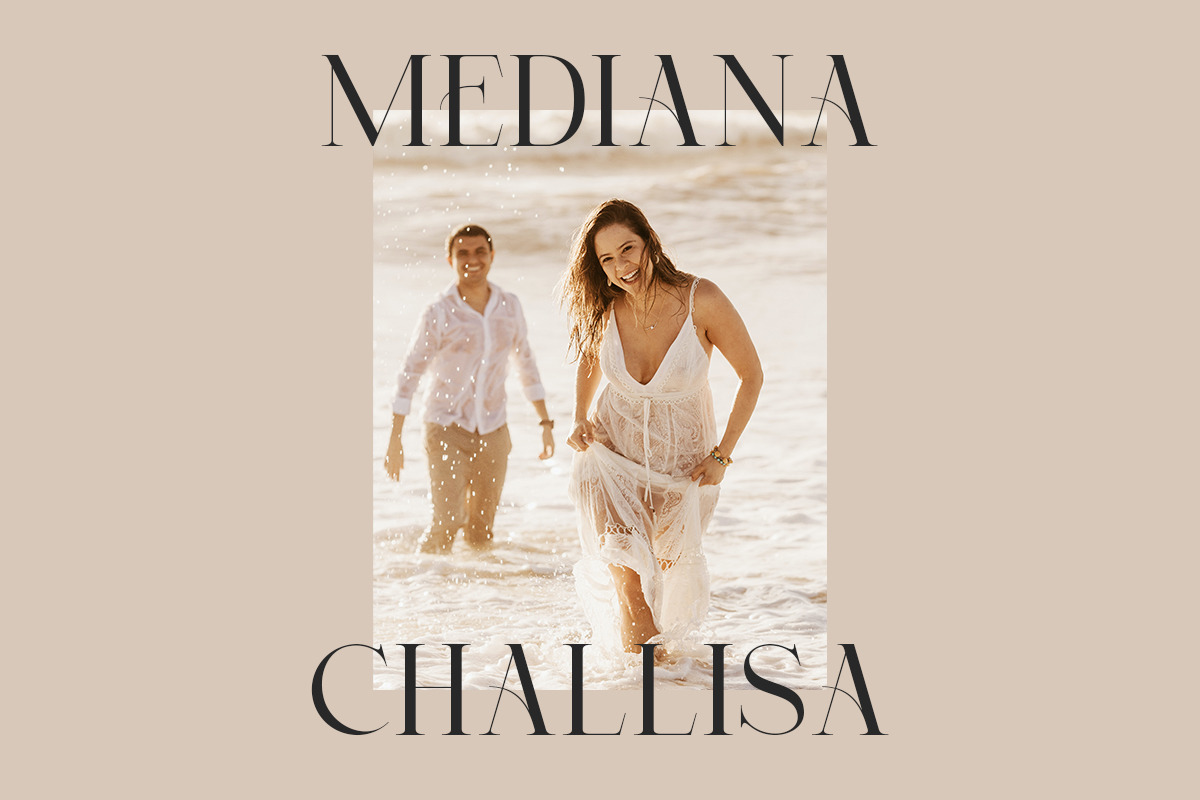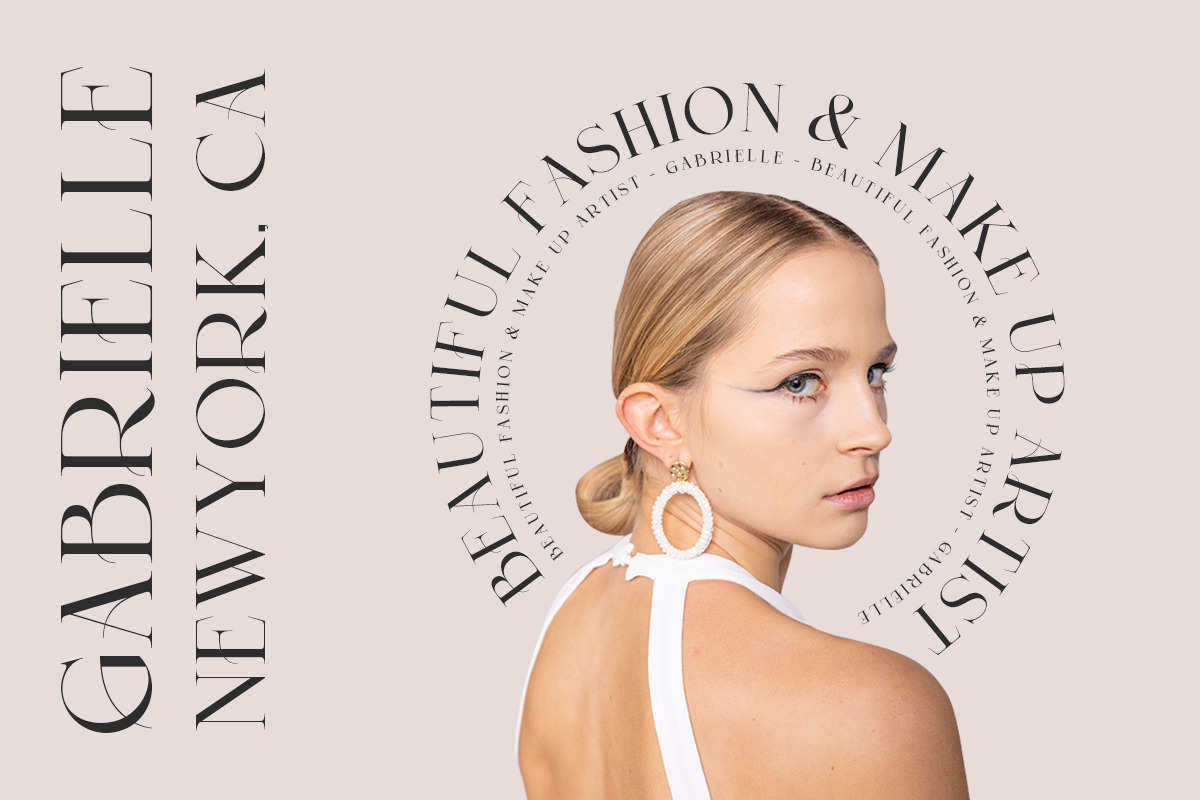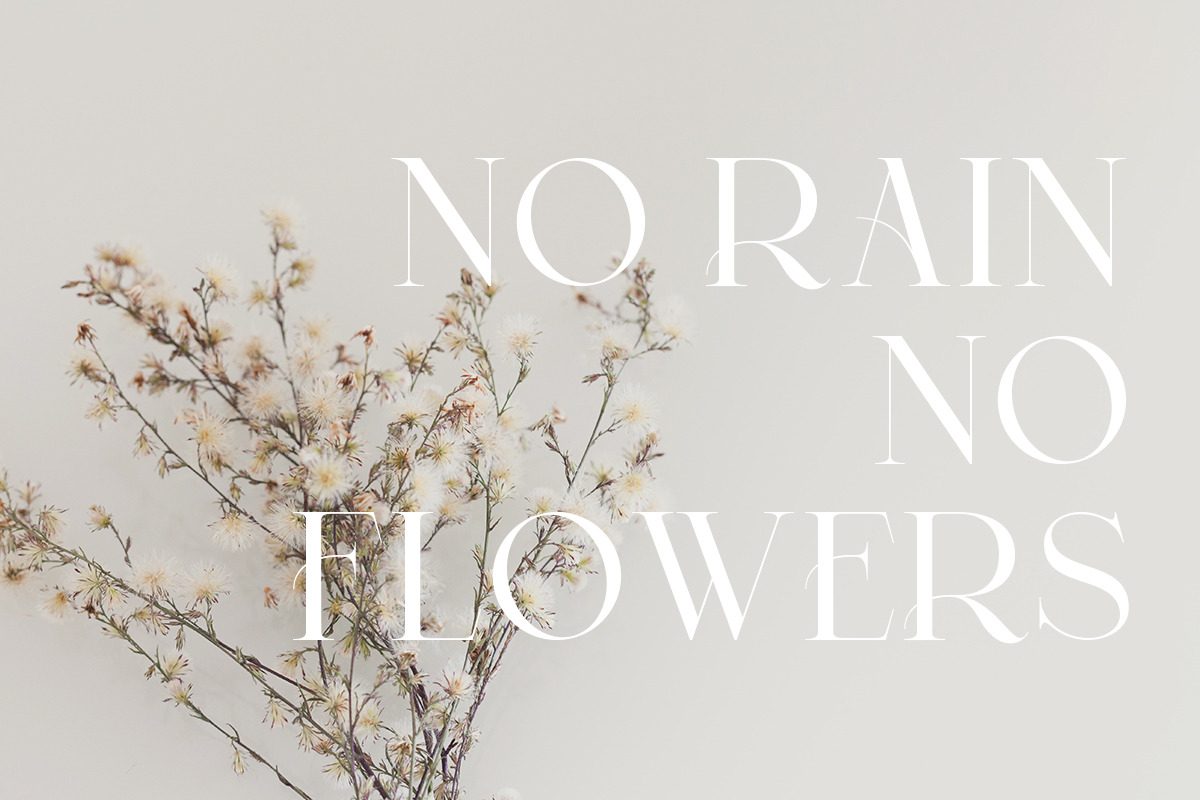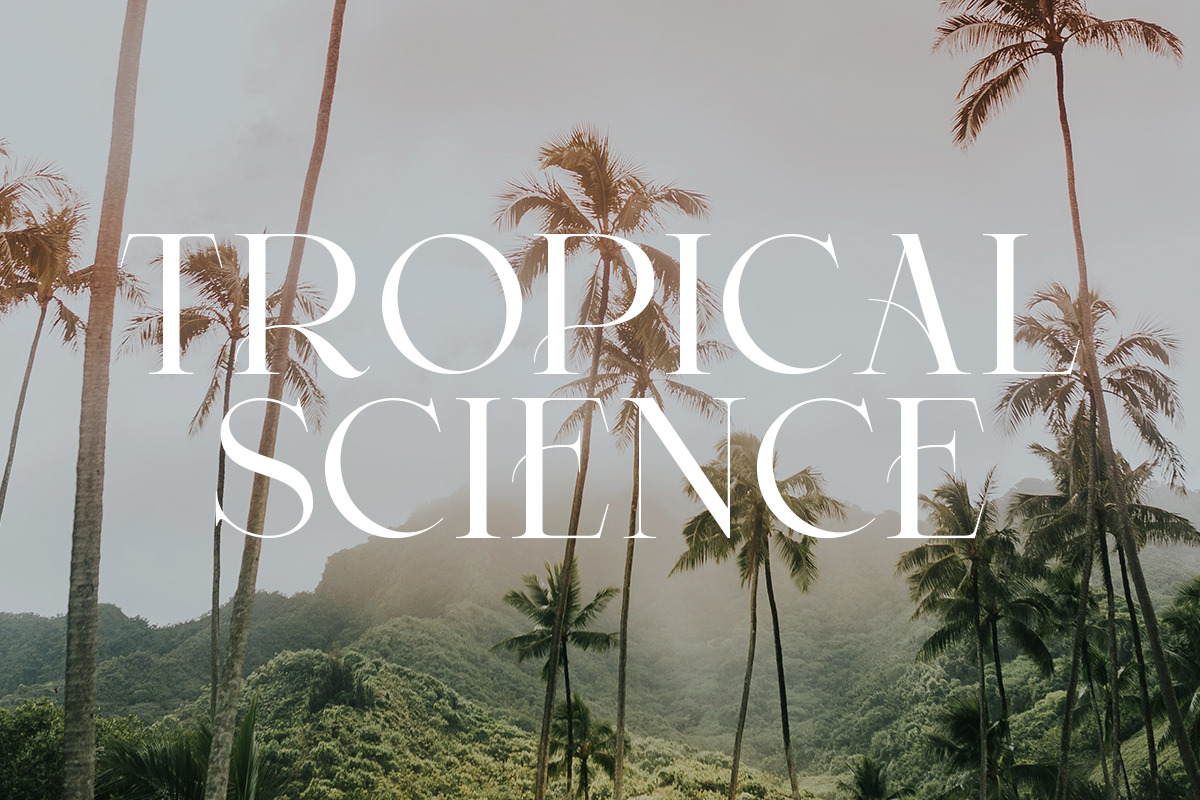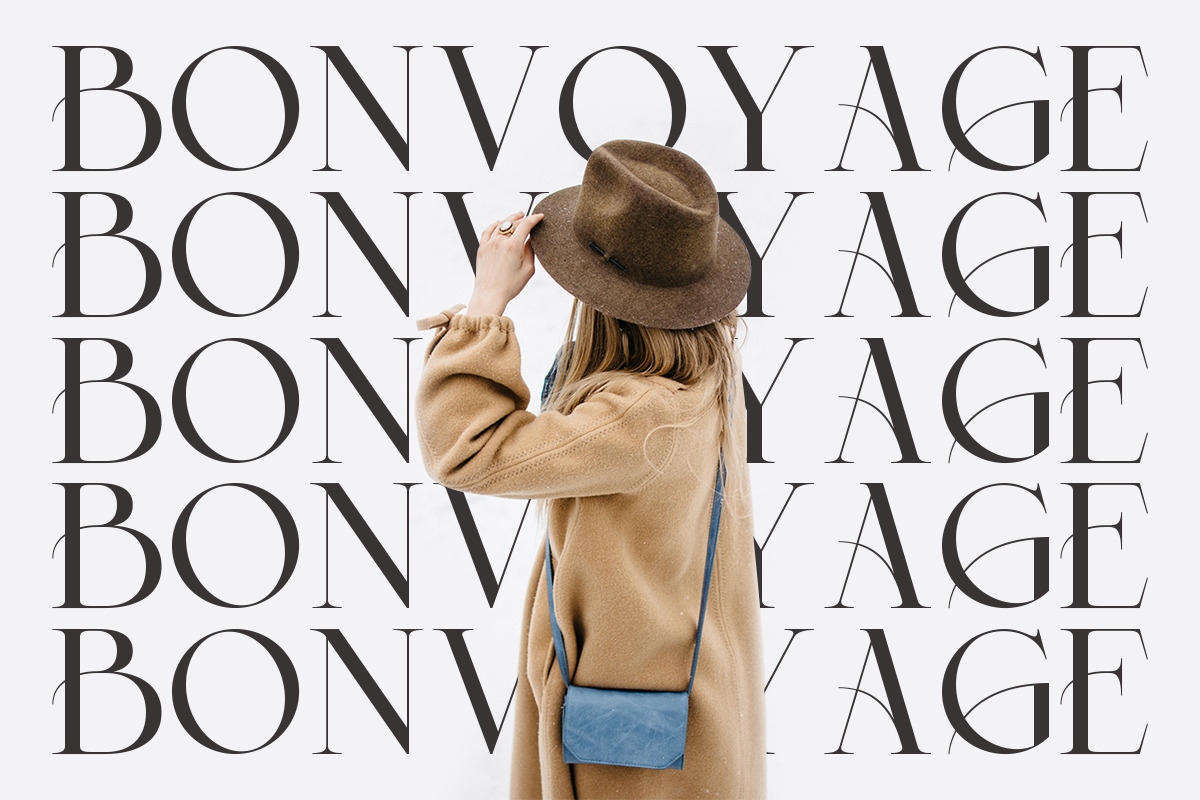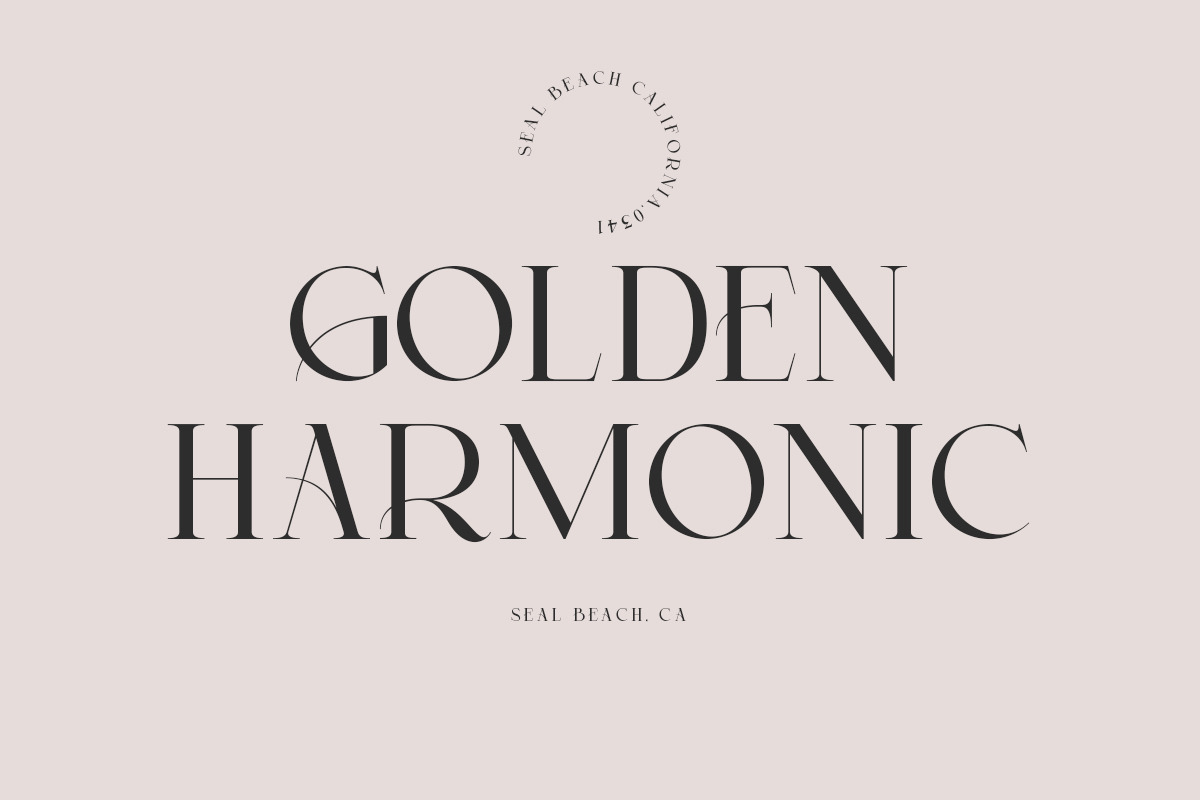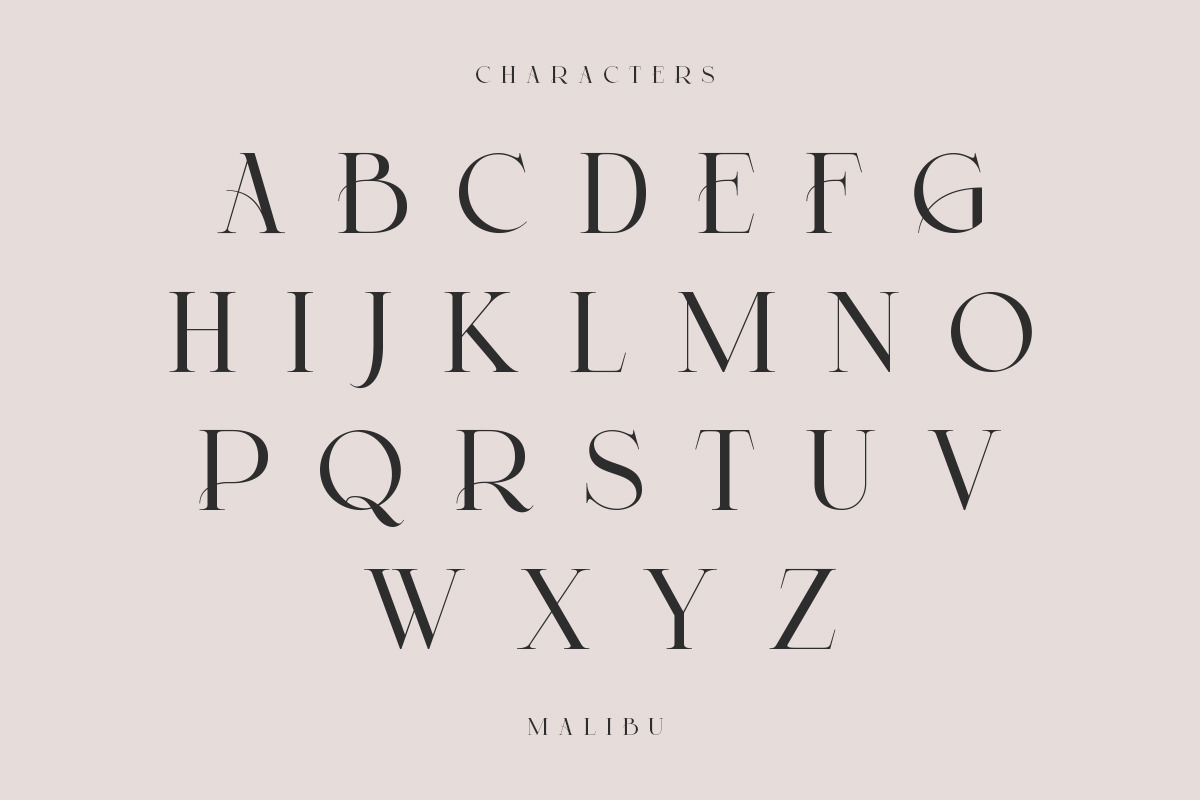
Malibu | Modern Stylish
Malibu fonts include uppercase letters, numerals, a large range of punctuation. Serif font with modern stylish style. Created for poster, web design, branding, illustrations, badges, and some other works.